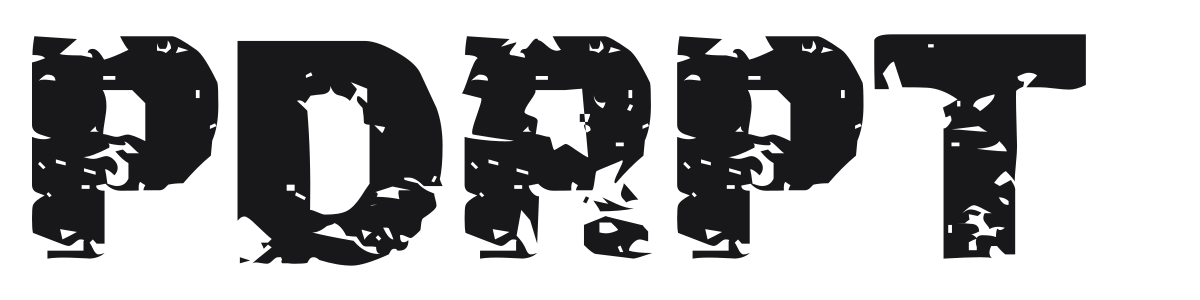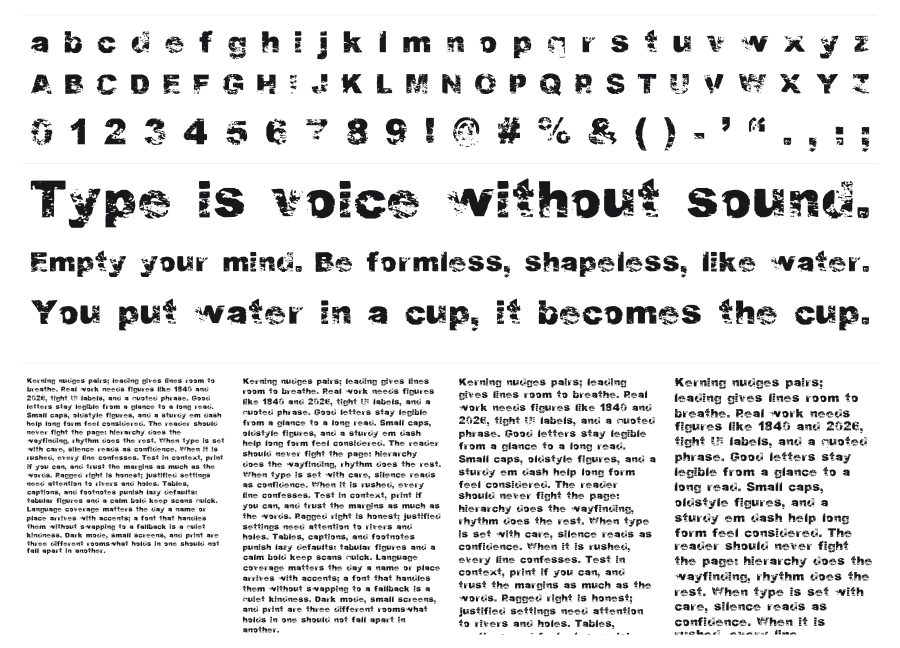
PDRPT
PDRPT is a heavily distressed bold sans-serif with a grunge texture that looks like it was printed on rough concrete and left in the rain. The base design is chunky and rounded, which makes the contrast with the aggressive erosion all the more striking. Strong at large sizes for band posters, streetwear graphics, or anything that needs a raw, underground energy.